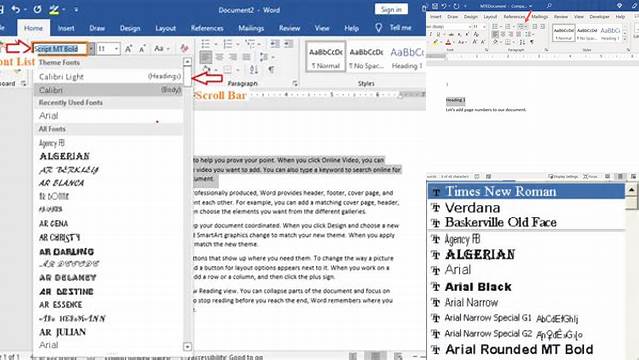
Microsoft Word Fonts List: Numbers And Formatting Guide
Hey guys! Ever wondered about the Microsoft Word fonts list and how to use them like a pro? Well, you've come to the right place! We're diving deep into the world of fonts, especially the ones available in Microsoft Word, and how you can make them work for you. Let's talk about numbers, those crucial elements that shape your documents, and how the right font can make them pop. This article is all about Microsoft Word fonts list numbers, and trust me, it's more exciting than it sounds!
The Significance of Font Selection in Microsoft Word
Alright, first things first: why does font selection even matter? You might think, "It's just text, right?" Wrong! Choosing the right font is like picking the perfect outfit – it sets the tone, conveys your message, and makes a lasting impression. In Microsoft Word, you have a vast library of fonts at your fingertips, each with its own unique personality. Some fonts are bold and assertive, ideal for headlines and titles. Others are elegant and refined, perfect for formal documents. And then there are the fonts that offer a playful touch, great for creative projects. When you're dealing with numbers, this becomes even more critical. Think about it: a simple change in font can transform a bland statistic into a compelling visual element. Microsoft Word fonts list plays a pivotal role, and knowing your options can significantly elevate the impact of your documents. Let's face it, in a world saturated with information, you want your numbers to grab attention, not fade into the background. The beauty of Microsoft Word is its accessibility. You don't need to be a design guru to make your documents visually appealing. With a bit of knowledge about fonts and how they work, you can create documents that are not only informative but also engaging and memorable. This is especially true when you are working with numbers. Numbers can be the most important part of your document. That's why the Microsoft Word fonts list is so useful. The right font can take your document from boring to exciting, and can make your numbers shine. From simple reports to elaborate presentations, the font you select impacts readability, comprehension, and the overall aesthetics of your work.
When it comes to Microsoft Word fonts list numbers, consider how different fonts render numerals. Some fonts have distinct numeral styles that can improve clarity and readability. For instance, monospace fonts (like Courier New) give each number the same width, making them ideal for tables and financial reports. Other fonts use proportional numerals, where the width of each number varies. This gives a more natural look but might not be the best choice for columns of figures. The key is to find the font that best suits your specific needs. Also, don't be afraid to experiment. Try out different fonts with your numbers and see which ones look best and are easiest to read. The Microsoft Word fonts list provides you with the tools to create visually compelling documents that leave a lasting impression. The right font can not only enhance the aesthetic appeal of your work but also significantly improve its clarity and readability. So, let's explore the list and find the perfect font for your needs!
Popular Microsoft Word Fonts and Their Numerical Characteristics
So, what fonts should you be looking at on the Microsoft Word fonts list? Let's break down some popular options and their numerical characteristics. These fonts are available by default in Microsoft Word, making them easily accessible for anyone.
- Times New Roman: A classic serif font, Times New Roman is a workhorse. Its numerals are well-proportioned and easy to read, making it a solid choice for documents where clarity is key. However, it might not be the most exciting option, so it might be best used for official documents. But, its readability is the reason it remains a favorite for many. The numerals in Times New Roman are elegant, but perhaps not the most eye-catching. The Microsoft Word fonts list wouldn't be complete without this old reliable, which has served the document needs of many for years. The spacing of the numbers is consistent and readable. The numbers are plain and straightforward, which make it a good option for text-heavy documents where numbers need to blend in, rather than stand out. Its readability makes it a good choice for reports, academic papers, and any document where the numbers need to be easily understood.
- Arial: Another standard, Arial is a sans-serif font known for its clean lines. The numerals in Arial are simple and legible, making it a versatile choice for various applications. Its modern feel and clean appearance make it a great choice for more modern documents. This is on the Microsoft Word fonts list for a reason! It's a great, simple font for a multitude of different uses. Arial's numbers are simple and clear, which makes them a good option for use in charts, graphs, or presentations. It's a good choice when clarity and readability are paramount. It's suitable for both screen and print, which makes it great for any type of document.
- Calibri: Calibri is the default font for many versions of Microsoft Word, and with good reason. It's a clean, modern sans-serif font with excellent readability, even at smaller sizes. The numerals in Calibri are designed to be clear and easy to distinguish, which makes it great for any occasion. Its numerals are designed with clarity in mind, making them perfect for both body text and headings where numbers are involved. If you're unsure what to use, start here. Because it is the default, it blends into the background and doesn't distract the reader. But, its clarity and legibility still make it a solid choice for pretty much any kind of document.
- Courier New: If you are looking for a monospace font, Courier New is the way to go. Each character, including numerals, has the same width. This makes it ideal for tables, code listings, and any situation where you need perfect alignment of numbers. Courier New is a great option for tables, reports, or any situation where the alignment of numbers is important. Each number takes up the same amount of horizontal space, which ensures that the numbers line up perfectly in columns. The numerals are easy to differentiate and read, as well, so it is a great option for presenting data. If you're dealing with financial figures or technical data, Courier New is a solid choice. It's not always the prettiest font on the Microsoft Word fonts list, but its functionality is unmatched.
Customizing Your Font Choices in Microsoft Word
Knowing the Microsoft Word fonts list is a great start, but how do you actually use it effectively? Microsoft Word gives you tons of customization options. Let's explore how to personalize your font selections to get the exact look you want.
Changing Fonts
This is the most basic step. Just select the text you want to change, go to the Font dropdown on the Home tab, and choose your desired font. You can change the font of individual numbers, or entire paragraphs. You can even change the default font for your entire document! Don't be afraid to experiment with different options from the Microsoft Word fonts list to see what works best for you. The flexibility here is immense, allowing you to adapt your document's look to its purpose. When selecting numbers, you can select either a single number or a whole series of numbers. Play around with different fonts to see what works for you!
Adjusting Font Size, Style, and Color
Once you have selected your font, you can tweak its appearance even further. Adjust the font size to make your numbers bigger or smaller. Use bold or italic styles to emphasize certain figures. Change the color of your numbers to make them stand out. These small details can have a big impact on the overall look and feel of your document. The size and style can significantly change the readability of your numbers. Color-coding your numbers can add clarity as well. Your document is what you make it! Microsoft Word's formatting tools give you the power to make your numbers both informative and visually appealing. From the Microsoft Word fonts list, you can choose fonts that are perfect for a variety of styles.
Conclusion: Mastering Numbers with Microsoft Word Fonts
Alright, guys, we've covered a lot! We've explored the Microsoft Word fonts list and how to pick the best font for your numbers. Remember, the right font can significantly improve the look and feel of your documents. With a little practice and experimentation, you can master the art of presenting numbers effectively in Microsoft Word. Knowing how to use the fonts on the Microsoft Word fonts list will make a difference. Now go forth and make your documents shine! Happy formatting!